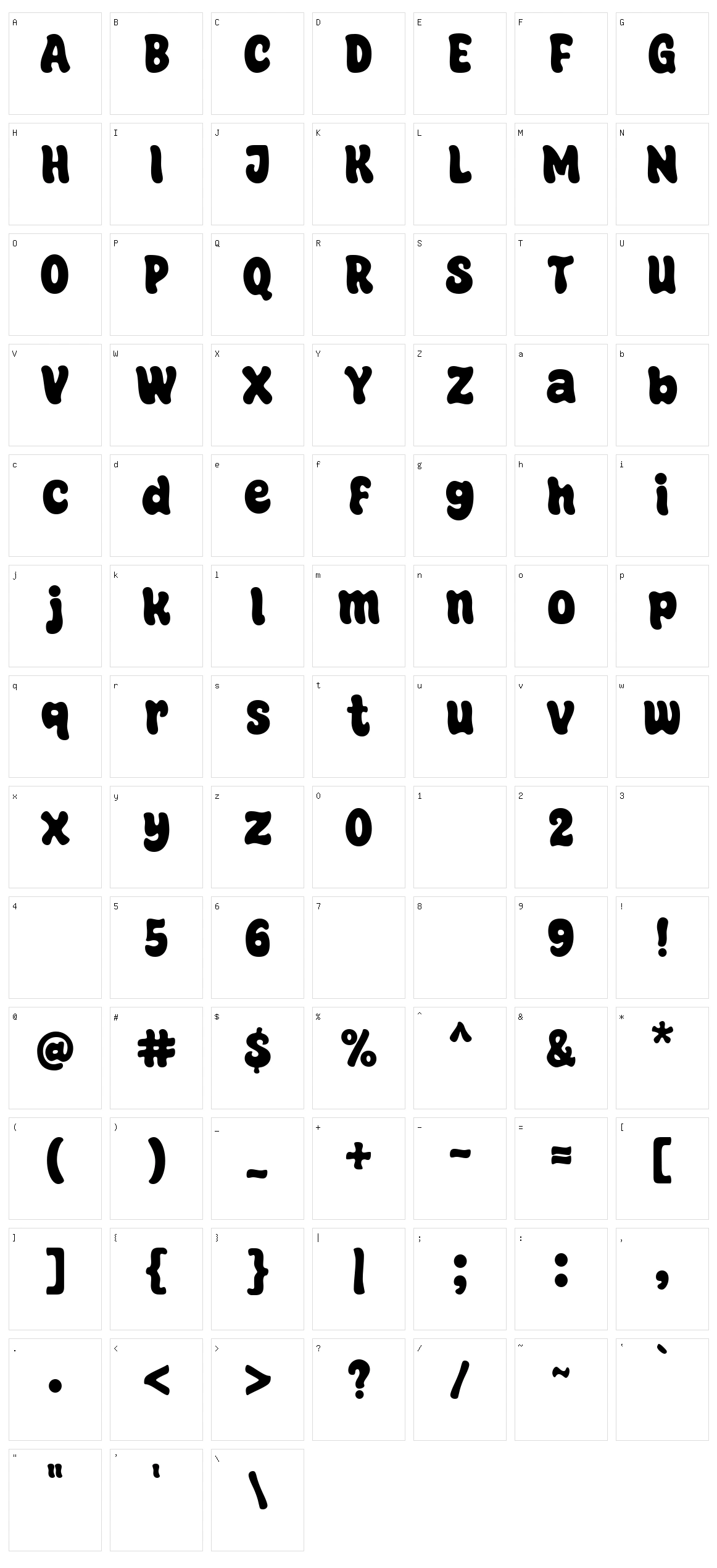
Introducing "Super Ocean": A Casual Dive into the Deep End
Super Ocean is a typeface designed to evoke the carefree spirit of the open sea, inviting you to dive into a world of casual elegance.